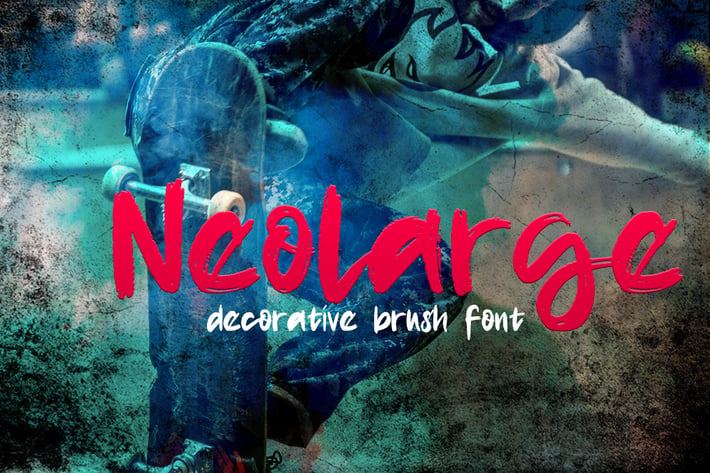
Neolarge - Decorative Brush Font
Are you looking for a decorative brush font? We can help! Try to download our Neolarge font. The font is suitable to use for many occasion such as branding, photography, poster, and event.